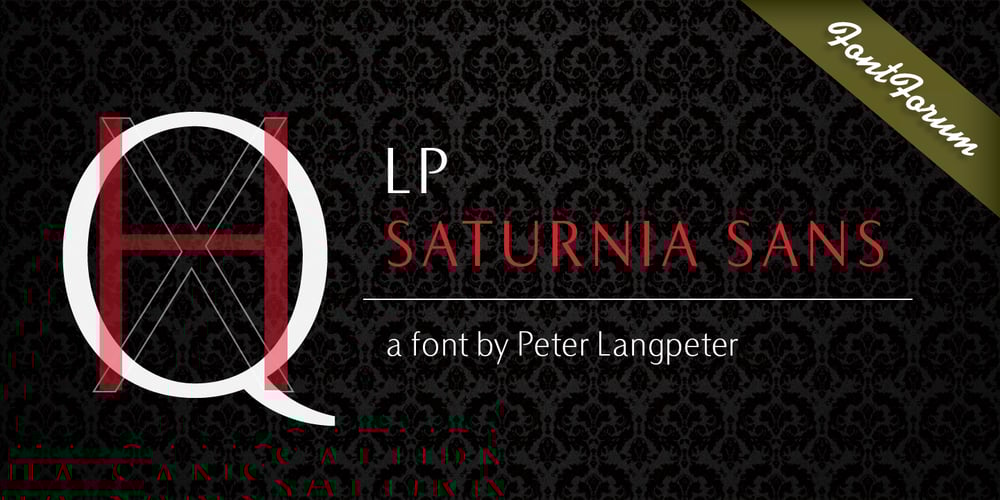
LP Saturnia Sans
LP Saturnia Sans font
LP Saturnia Sans Font Family was designed by Peter Langpeter and published by URW Type Foundry. LP Saturnia Sans contains 7 styles and family package options. Following up on the LP Saturnia, which is a modern interpretation of the classic Roman letterforms, comes the LP Saturnia Sans. While keeping the clear forms, this well-balanced Sans transports the original draft even further in the modern and at the same time preserves its classic character.